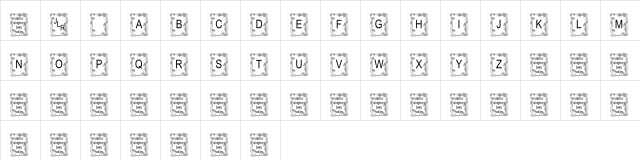
JLR Autumn2000 AH Regular
Design Context for JLR Autumn2000 AH Typeface
JLR Autumn2000 AH offers clean, dependable letterforms without strong stylistic allegiance, making it a practical choice for designers who need flexibility.